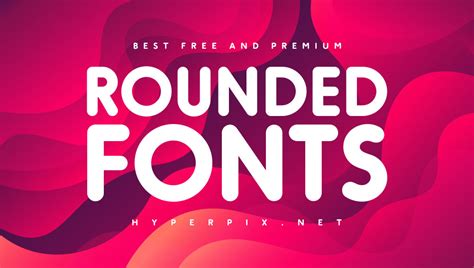
Are you tired of using the same old boring fonts in your designs? Do you want to add a unique and creative touch to your projects? Look no further because we have the solution you've been searching for! Our free rounded fonts for Windows will unlock unlimited creativity and bring a fresh new feel to your designs.
Did you know that using creative fonts can increase engagement and improve brand recognition? According to a study by the Design School, fonts with unique characteristics were found to be more memorable than standard fonts. So why not elevate your designs today with our free rounded fonts?
The Power of Rounded Fonts in Design
Fonts have always played a vital role in graphic design. They speak a language of their own, and can enhance or diminish the impact of any design. In recent years, rounded fonts have gained popularity among designers for their playful, friendly and approachable feel. These fonts help convey a sense of warmth, friendliness, and whimsy that is often missing in more serious designs. Rounded fonts are perfect for creating memorable logos, branding materials, posters, brochures, and any other design project that requires a touch of fun and playfulness.
Rounded vs Regular Fonts: The Key Differences
So what makes rounded fonts so special? First and foremost, they are designed with curved lines that lack the harsh edges of more traditional, angular fonts. This makes them look softer and more accessible, which is perfect for designs that need to communicate a friendly, easy-going vibe. Rounded fonts also tend to be bolder and more eye-catching than regular fonts, which makes them especially useful for headlines and titles. Additionally, when paired with other fonts or graphic elements, rounded fonts can add depth and interest to your designs.
What Makes Our Free Rounded Fonts So Good?
Our collection of free rounded fonts is perfect for designers who want to infuse their work with a touch of fun and whimsy. Here are just a few of the reasons why our fonts stand out from the crowd:
| Versatility | Our fonts are suitable for a wide range of design projects, from logos to social media graphics to book covers. |
| Easy to Read | Unlike some overly stylized fonts, our fonts are easy on the eyes and legible at a variety of sizes. |
| Playful yet Professional | Our fonts strike the perfect balance between casual playfulness and polished professionalism. They're ideal for businesses and organizations that want to convey a sense of approachability. |
How to Incorporate Rounded Fonts into Your Designs
Ready to start using our free rounded fonts in your designs? Here are a few tips for making the most of these versatile typefaces:
- Pair them with sans-serif fonts for a modern, clean look.
- Experiment with different weights and styles to find the perfect combination.
- Use rounded fonts for headlines and titles to make them pop.
- Try combining different rounded fonts in a single design for added interest.
- Use our fonts to add a touch of playfulness to serious topics or projects.
Unlock Your Creativity with Our Free Rounded Fonts Today!